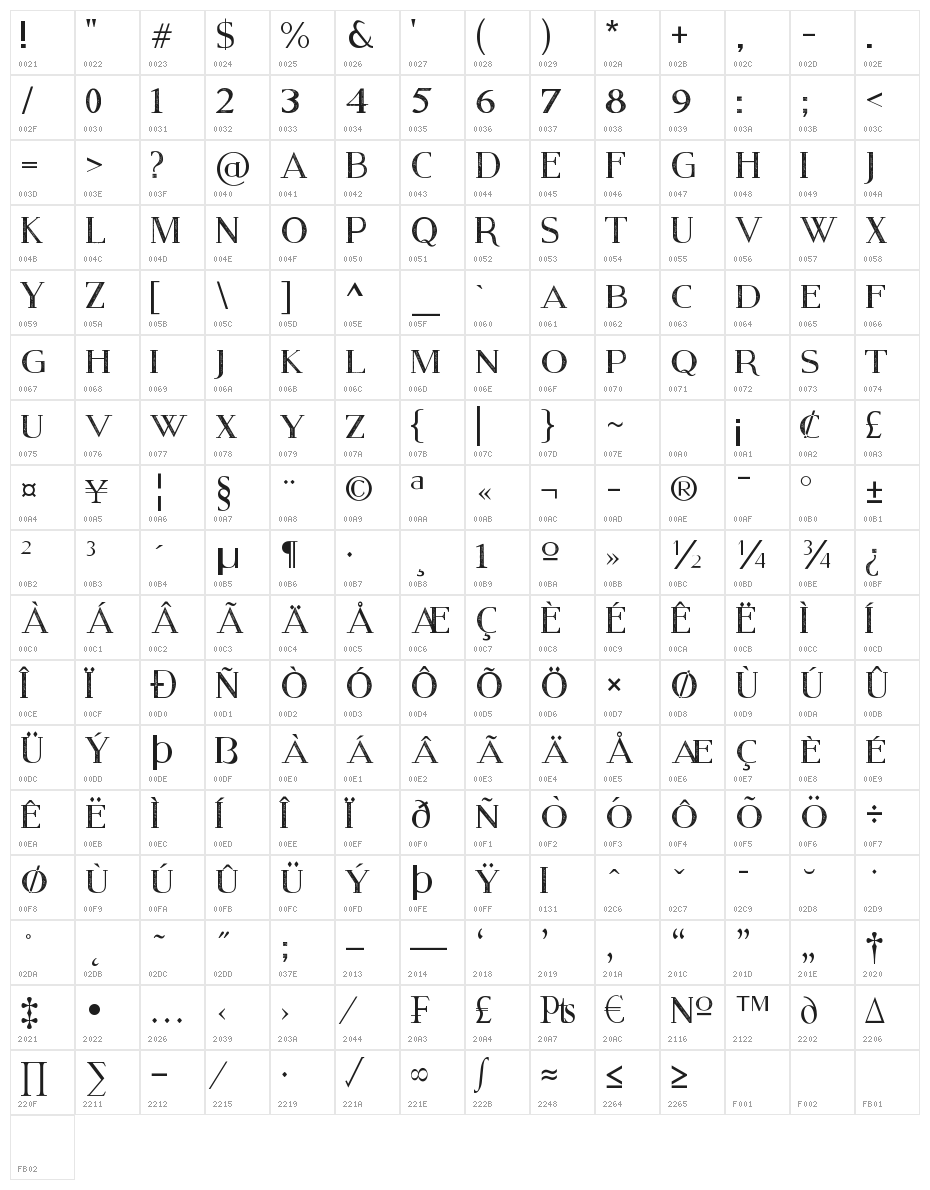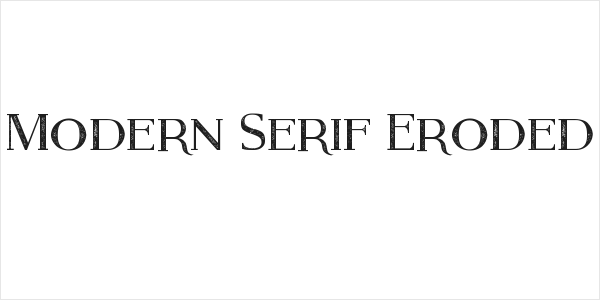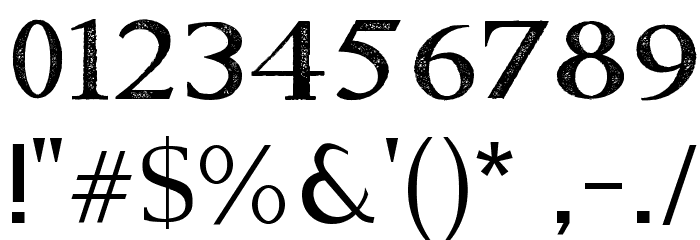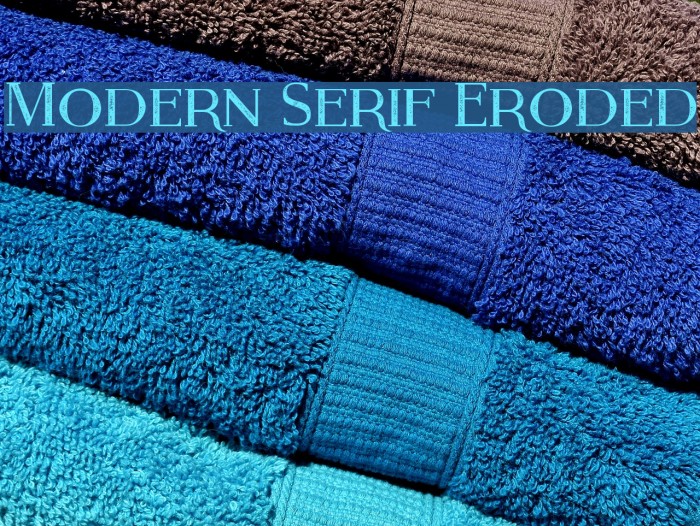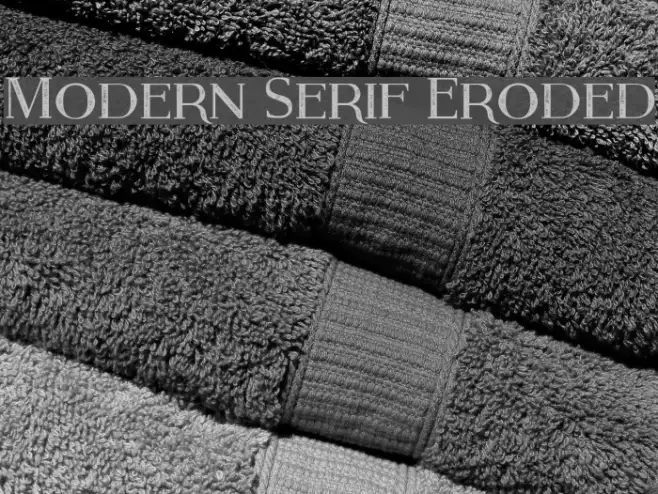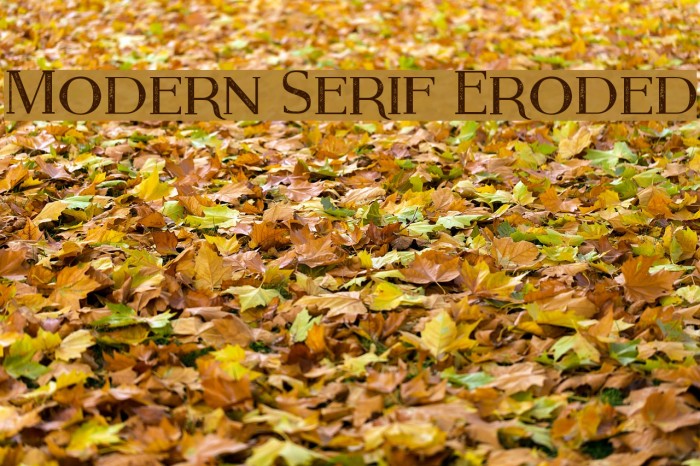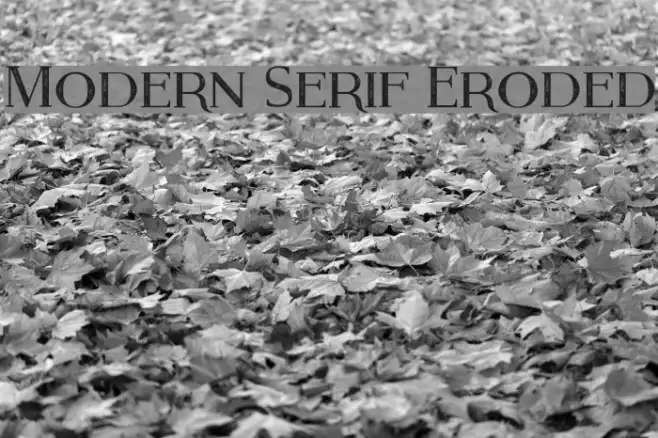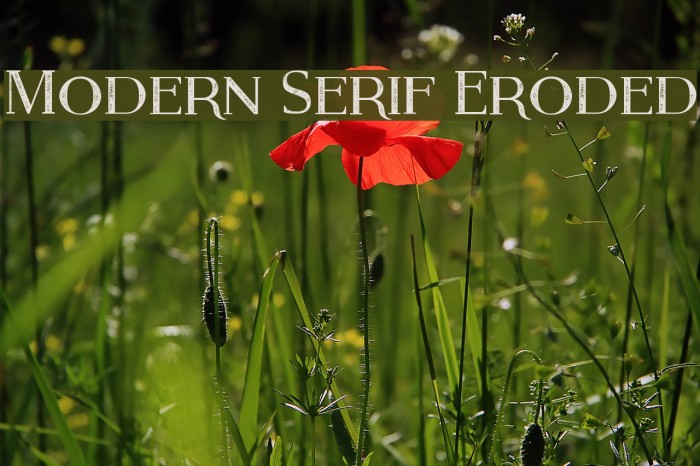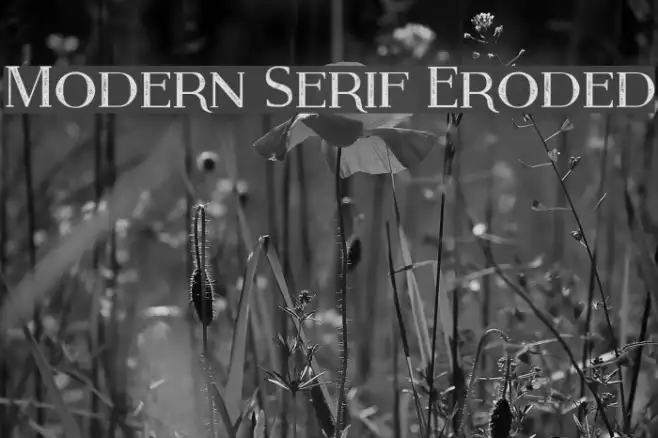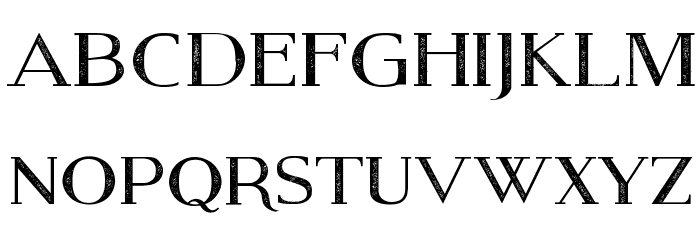
Modern Serif Eroded Font
This font features a modern serif style with an eroded, distressed texture that gives it a unique, vintage appearance. The serifs are prominent, adding a classic touch, while the eroded effect introduces a sense of age and character. The uppercase and lowercase letters maintain a consistent design, with clean lines and balanced proportions. The numerals and special characters follow the same eroded theme, ensuring a cohesive look across all glyphs. This font is ideal for projects that require a blend of modern elegance and rustic charm.
| Proposed Projects | Perfect for branding, poster design, and vintage-themed projects. |